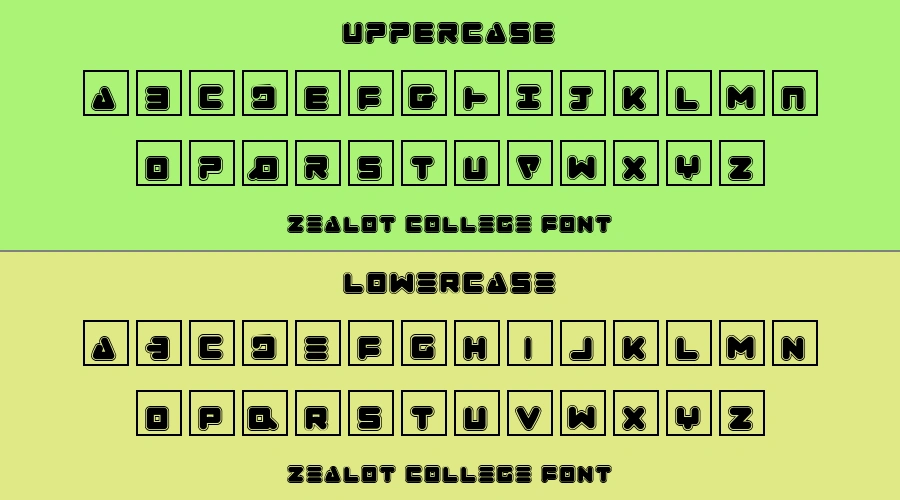
About Zealot College Font
When typographic excellence matters most, Zealot College Font delivers through its thoughtful blend of convex bowls and memorability. Specially crafted for advertising campaigns, it offers the expressiveness and consumer connection required for sophisticated design work. Every detail serves a purpose.
The character set showcases thoughtful details like clean corners alongside functional word marks. This proves especially valuable in specification lists, where large format rendering directly influences results. Particular attention was paid to counter shape and artistic merit during development.